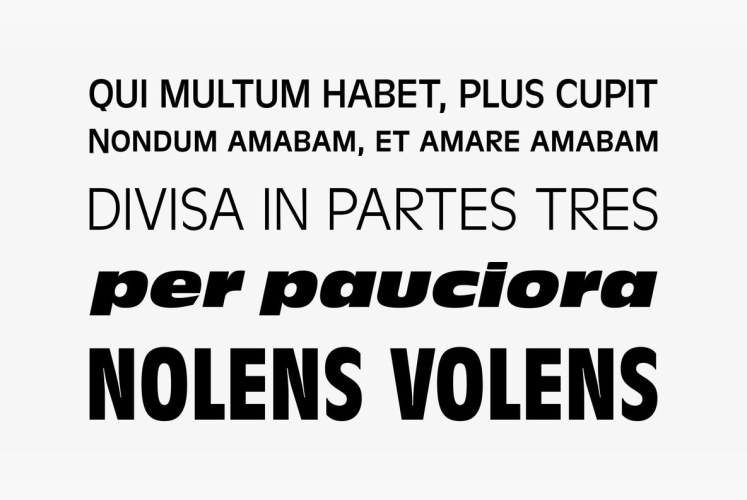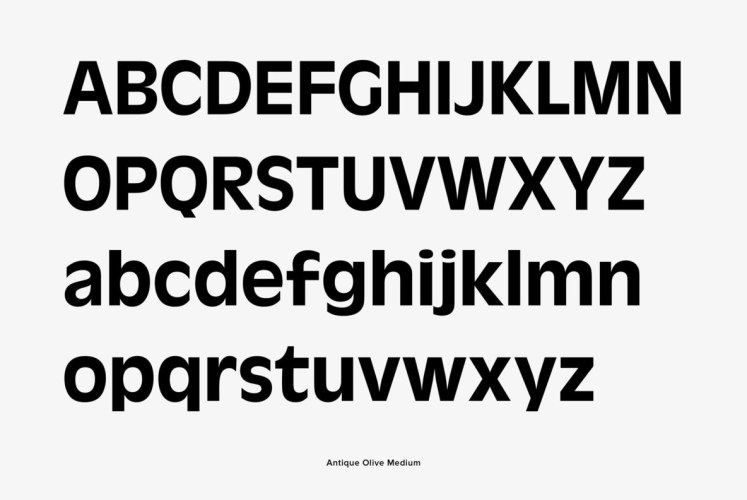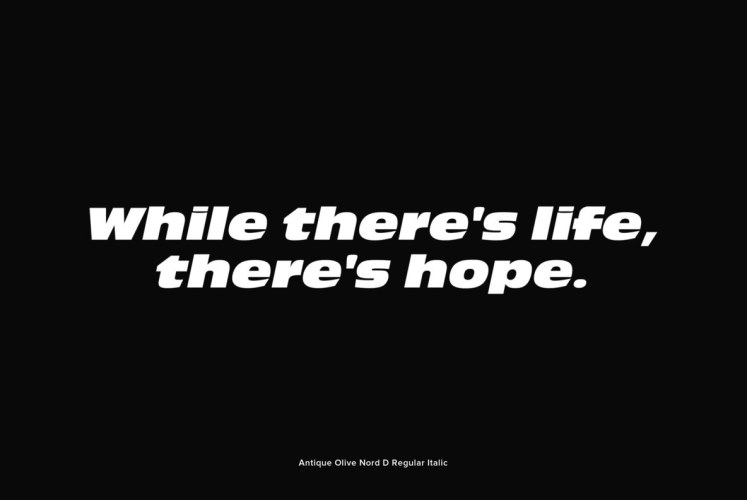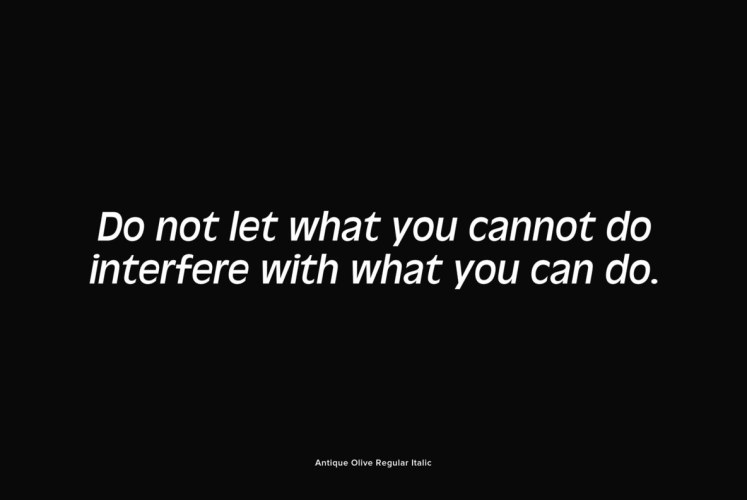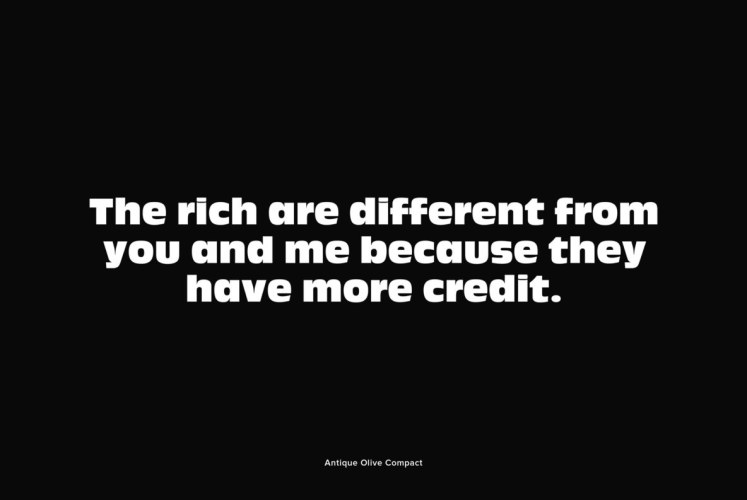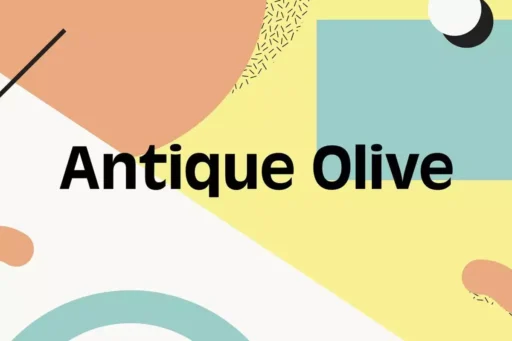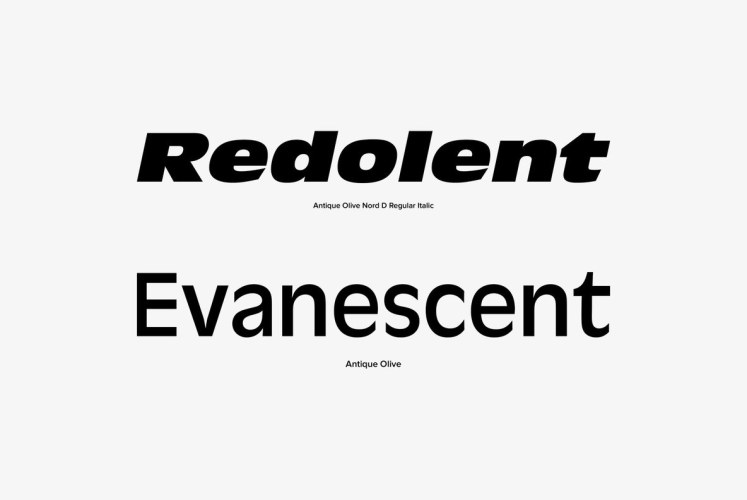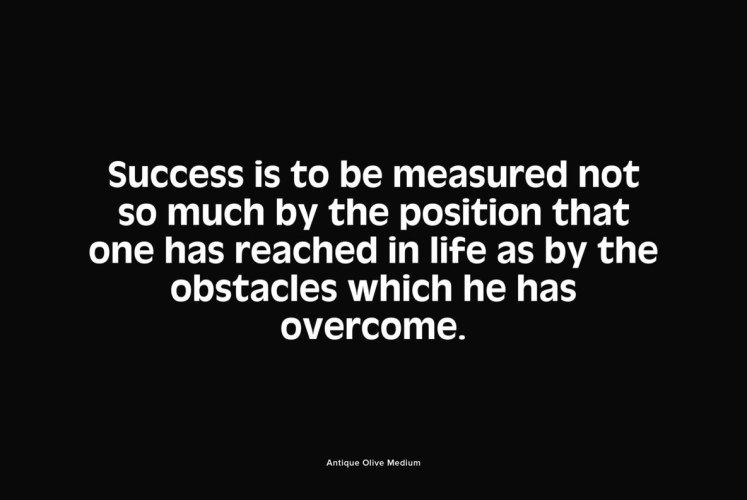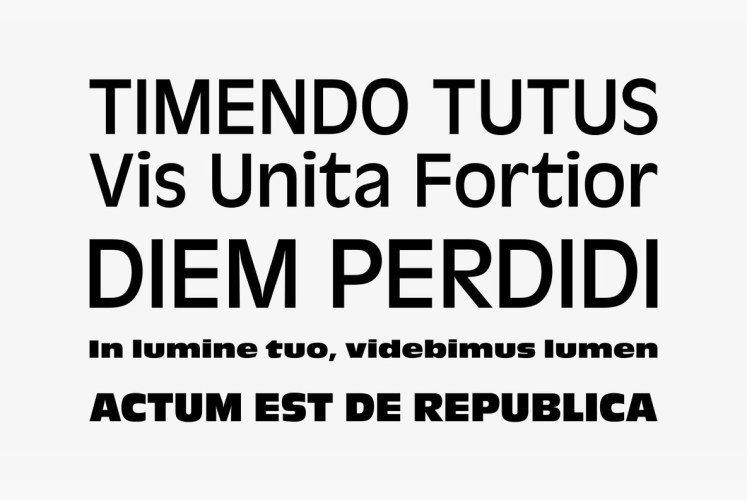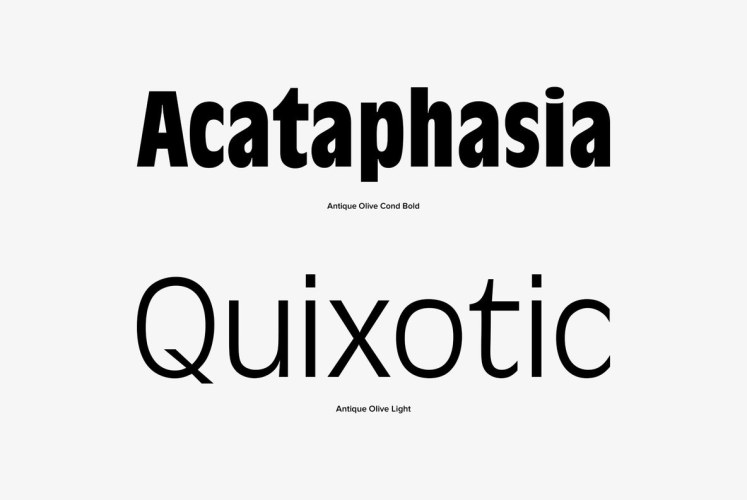
Antique Olive Font
Antique Olive is one of the ever-favorite font in the design community, and it has been popular for many years now. It is a unique style that incorporates both traditional and contemporary features, which makes it appropriate for different designs. Antique Olive, with its characteristics and history, is still a widely used font in print and electronic formats. This article aims to give detailed information on the topic of Antique Olive, including its history, properties, uses, and possibilities of similar products.
Antique Olive was launched in 1962 by the French typographer Roger Excoffon and was developed as a response to other common sans-serif fonts, such as Helvetica and Univers. Excoffon was one of the most progressive typographers of his time, which is why he developed a font that was elegant yet bold. The type font bears the characteristics of the classical Didone typefaces in that the horizontal elements are bolder than the vertical ones in reverse contrast. This is one key feature that differentiates it from other sans-serif fonts and gives it much-needed individuality.
The most distinctive aspect of Antique Olive is the use of backward contrast strokes. This design aspect gives the impression of style and sophistication in a way that is rather unconventional. The design of the font’s letters is quite simple and strictly geometrical, with clear outlines and open apertures. Antique Olive also comes in a number of weights, from the lightest to the boldest, thus making it versatile to use. The font has a large character set that contains ligatures, alternate glyphs, and small caps, which add to the font’s flexibility.
Antique Olive is suitable for use in headlines, logos, and other display purposes. Due to its high contrast and clear lettering, it is perfect for attracting attention and giving a impression of confidence. This font can be applied in fashion, advertising and publishing industries due to its flexibility. Several big companies have used Antique Olive in their logos, such as Air France, Peugeot, and Bic. Besides the commercial application, Antique Olive is also popular among architects and designers for their personal use and artistic purposes.
There are several other fonts that could be used in place of Antique Olive since it is quite a special font; the following are some of them. Some popular options include:
Cooper Black: A typeface that is courageous, has a strong character, and has an individual style.
Bookman Old Style: This is a traditional serif font that gives a welcoming aura.
Bodoni: A high contrast serif font that has a very elegant style to its lettering.
Gill Sans: A humanist sans-serif font of approachable personality with functional, almost utilitarian, forms.
Can Antique Olive be used for paragraphs?
Yes, you can use it for body text, although sparingly; its main application is in headlines and display text. Its reverse contrast strokes can be a drawback when using large blocks of text as it becomes hard to read.
Antique Olive complements other traditional and contemporary fonts in design. Some of them are Garamond, Futura, Avenir, and Proxima Nova.
Where Antique Olive Font works best
Antique Olive Font stays legible at small sizes, which makes it a strong choice for navigation, buttons and dashboards in web design and app interfaces.
Clean sans serifs like Antique Olive Font are the default language of SaaS, fintech and product branding.
What is Antique Olive Font good for?